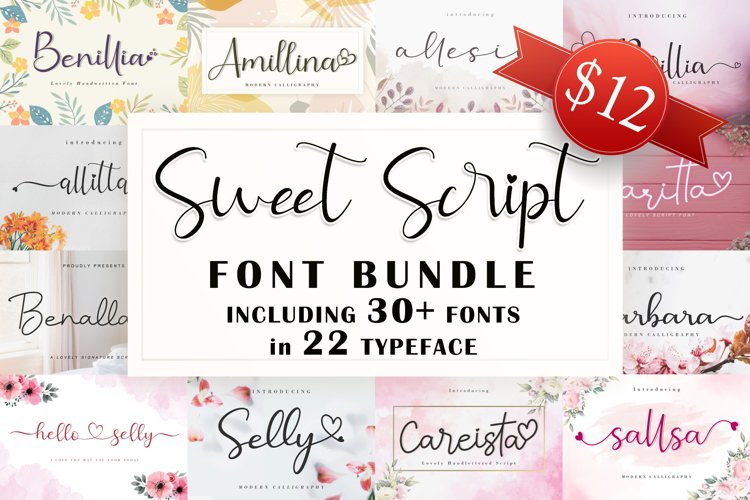
Sweet Script Font Bundle
Introducing, Sweet Script Font Bundle
This bundle is filled with 20+2 sweet and lovely typefaces.
1. Benillia
2. Amillina
3. Sallsa
4. Careista
5. Monallesia Script
6. Giette
7. Hello Selly
8. Allesia
9. Allitta
10. Leytta
11. Selly
12. Lathi
13. Barbara
14. Brillia
15. Gietta
16. Selitta
17. Benalla
18. Ravenna
19. Faritta
20. Lattiefa
1. Sandwell
2. Hamuna
This bundle is perfect for many different projects such as wedding, design, branding, heading, signature, logos, invitation, stationery, social media posts, photography, watermark, special events, advertisements, label and many more!